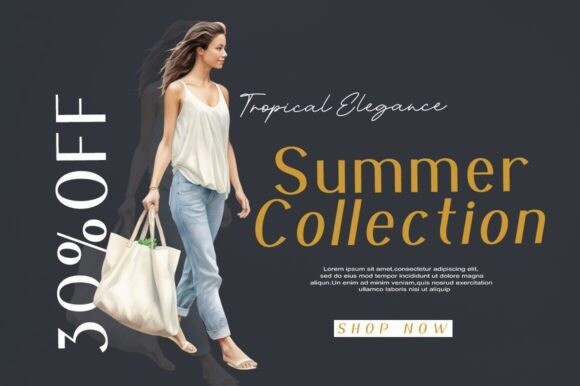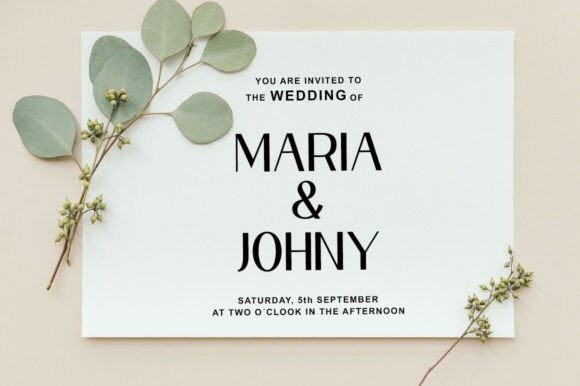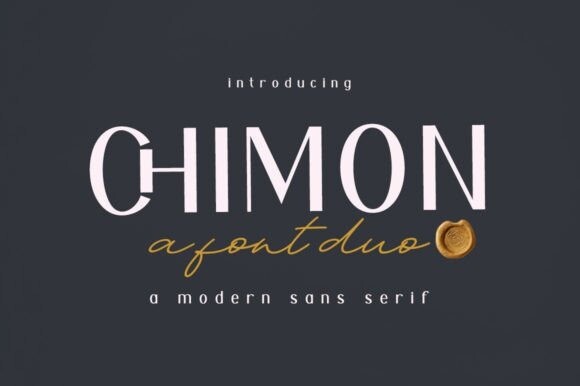
Chimon Font Duo
Chimon Font Duo is a handcrafted brush font created with brush and ink. Chimon Font Duo This typeface is ideal for use in bold watercolor designs or handwritten styles, such as blog titles, posters, wedding elements, T-shirts, clothing, book covers, business cards, greeting cards, branding, and cafe/restaurant signs. merchandise, etc.